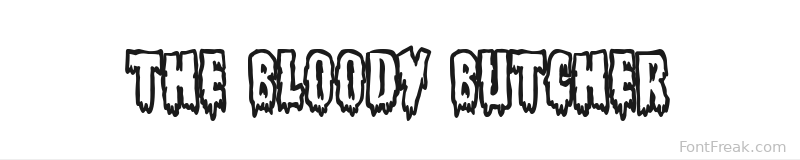
The Bloody Butcher
About The Bloody Butcher
The Bloody Butcher font by woodcutter Manero is a striking display typeface that captures attention with its unique and chilling aesthetic. This decorative font features irregular, jagged edges that lend it a raw, visceral quality, making it perfect for projects that require a sense of drama or intensity. The stroke weight is uneven, creating an organic feel that enhances its thematic connection to horror and the macabre. The spacing is tight, which adds to the font's bold presence, while the whimsical, dripping details evoke the imagery of blood, making it both memorable and impactful.
Best suited for use cases such as horror movie posters, Halloween-themed party invitations, and graphic novels, The Bloody Butcher font excels in settings where a sense of urgency or fright is desired. Its unique characteristics make it an excellent choice for restaurant menus that lean into a gory or edgy theme, as well as merchandise for events like haunted houses or escape rooms. The font’s dramatic flair is ideal for graphic designers looking to make a statement, small business owners wanting to stand out, and content creators seeking to inject a bit of personality into their work.